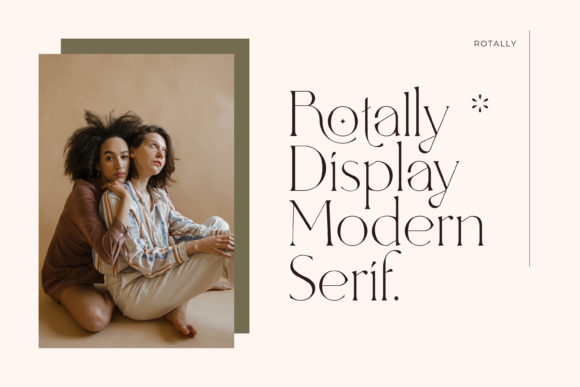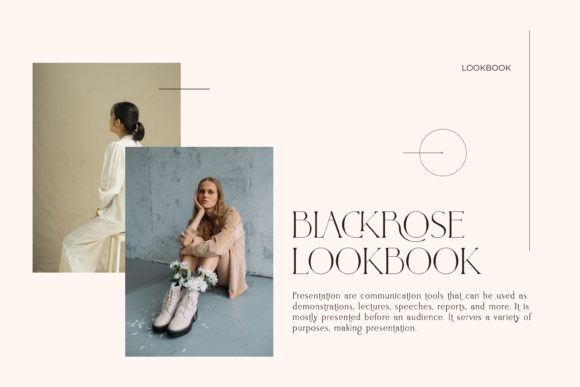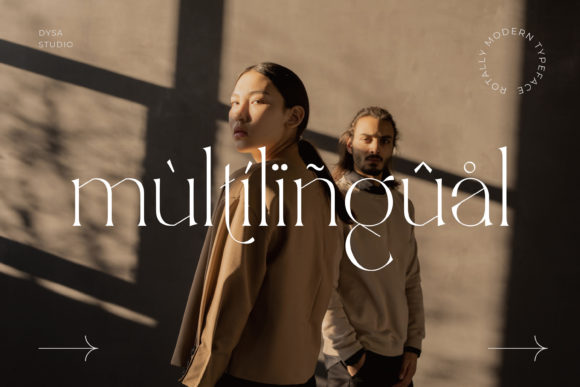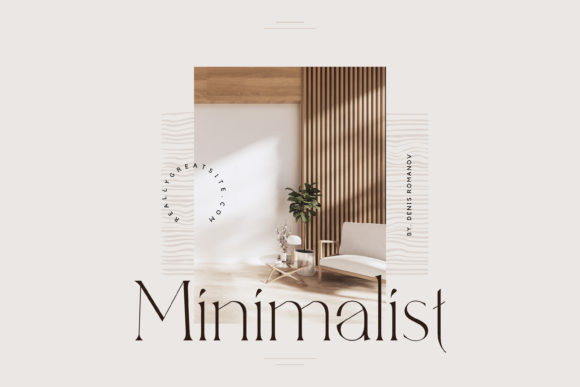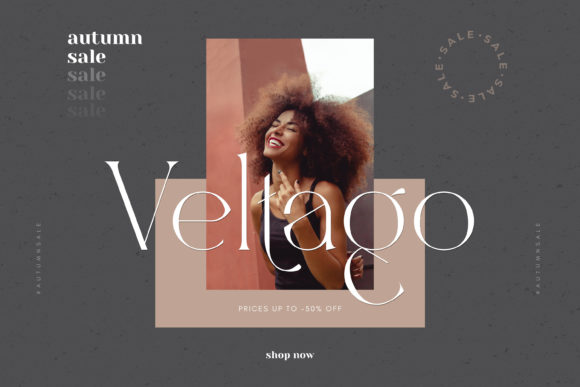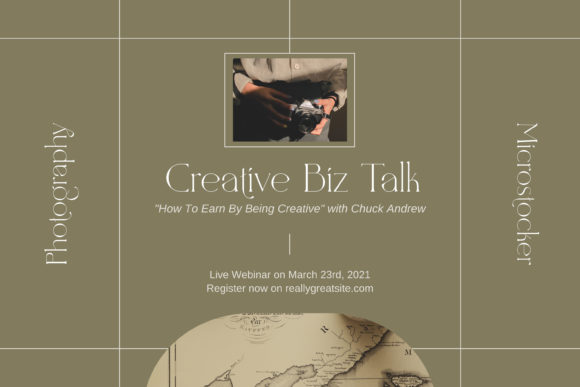
Introduction to Rotally Font
As a designer, there’s nothing quite like the thrill of landing on the perfect font for your next project. You’ve poured over countless options, and finally, you stumble upon the one that sets your heart racing. For us, that font is the elegant and thin lettered Rotally Font. Its luxurious feel is unmatched, and its versatility makes it a go-to choice for designers seeking to add a touch of sophistication to their work.
Whether you’re working on a high-end branding campaign or a creative project that requires a bit of flair, Rotally Font is sure to deliver. With its sleek, modern aesthetic, it’s the perfect design resource for anyone looking to elevate their visual identity. And the best part? It’s available for free download, making it an accessible and valuable addition to any designer’s toolkit.
- High-quality design resource ideal for creative projects, offering a unique and stylish touch.
- Designed with a modern aesthetic, Rotally Font is perfect for designers seeking a high-quality, versatile font for their creative projects.
Honest Review: Rotally Font
As a designer, I’m always on the lookout for high-quality design resources to elevate my creative projects. I recently stumbled upon Rotally Font, and I’m excited to share my honest review.
- Clean and modern design aesthetic that’s perfect for modern branding and digital products.
- Available in a range of weights and styles, making it versatile for various design applications.
- May not be suitable for projects requiring a more traditional or classic font style.
- Some users may find the font’s modern aesthetic too trendy or overused.
Overall, I’m impressed with Rotally Font’s clean design and versatility. While it may not be the best fit for every design project, it’s a solid choice for modern branding, digital products, and creative projects. If you’re looking for a high-quality, free design resource, Rotally Font is definitely worth considering.
Rotally Font is a versatile and high-quality design resource ideal for various creative projects. Its transparent background and free download make it an attractive option for designers and artists.
Tips for Getting the Most Out of Rotally Font
To get the most out of Rotally Font, consider the following tips:
- Use the transparent background to create a sense of depth and dimension in your design.
- Combine Rotally Font with other design elements to create a visually appealing composition.